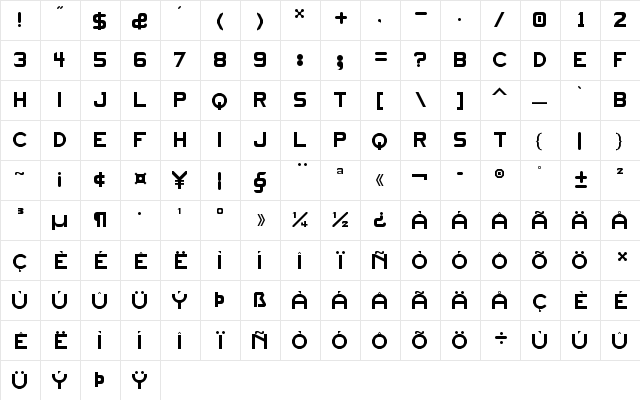
Mek Caps Regular
| Designer | MJ Ahlers |
Design Context for Mek Caps Typeface
Mek Caps takes a measured approach to typography — its balanced proportions and neutral character make it a reliable workhorse for both digital and print work.